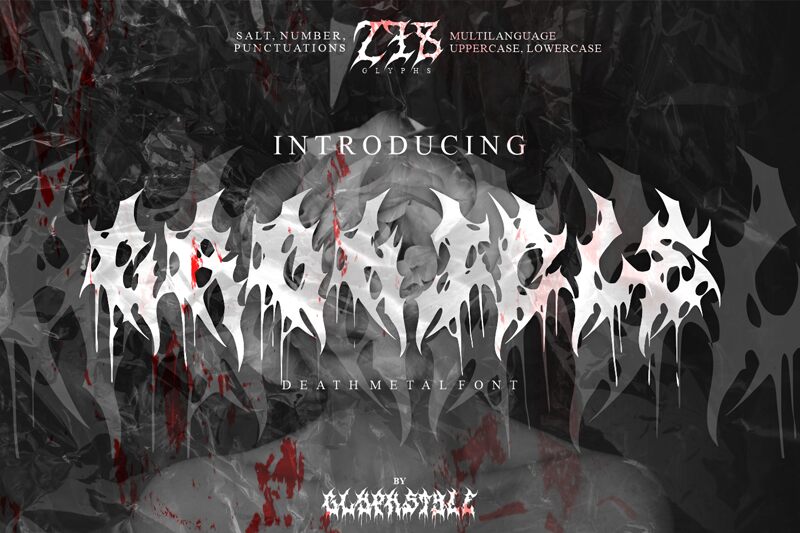
Cronicle, crafted by Glyphstyle, is a modern gothic font that captivates with its dramatic and intense design. The characters stretch wickedly with elongated spikes and erratic edges, creating an aesthetic that is both dark and mesmerizing. Its visual complexity makes it perfect for projects requiring a bold statement, such as album covers, horror-themed posters, or edgy branding.
If you're aiming to evoke a sense of mystery and depth in your designs, Cronicle offers an unparalleled fusion of fierce elegance and creative flair.